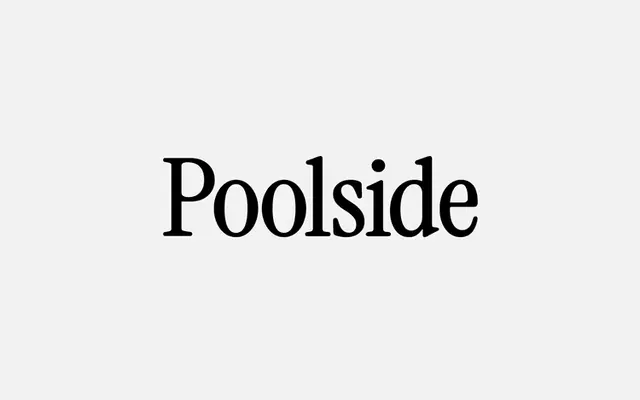
A display serif drawn from the headline and advertising typefaces of the 1980s and 90s, offered in Regular and Italic.
Poolside takes its cues from the popular serif styles that dominated titles and advertising during the 1980s and 90s. Certain expressive glyphs distinguish it from straightforward period revivals, giving it a slightly edgier character. Available as a free download in two styles, Regular and Italic, in OTF format.
Inspired by popular serifs of the 1980s and 90s used in headlines and advertising, Poolside sits in display serif territory with expressive, period-specific character forms suited to titles rather than body text.